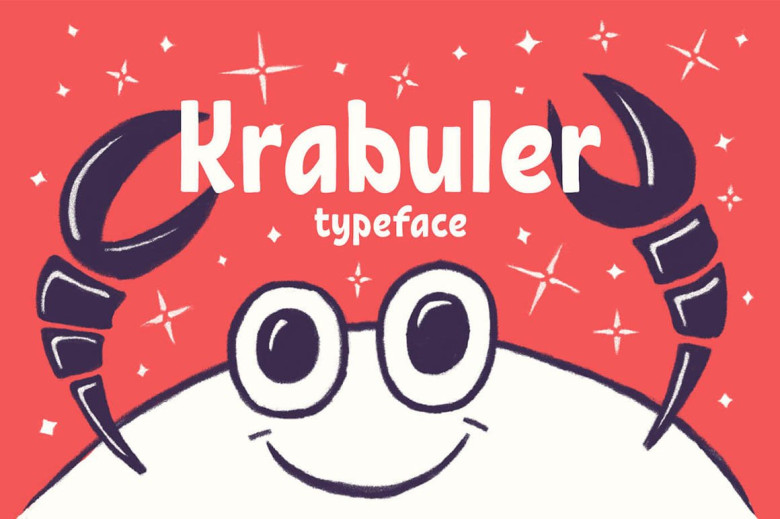
Krabuler Typeface
Are you looking for a font, adding to your collection, serving for the design, creation.! Introducing Krabuler Typeface! Krabuler designed and shared by russianfonts. Krabuler Typeface made specifically for kids. Cartoons, books, children’s products, logotypes — this is his natural habitat. At the same time the font will help to solve any design tasks.